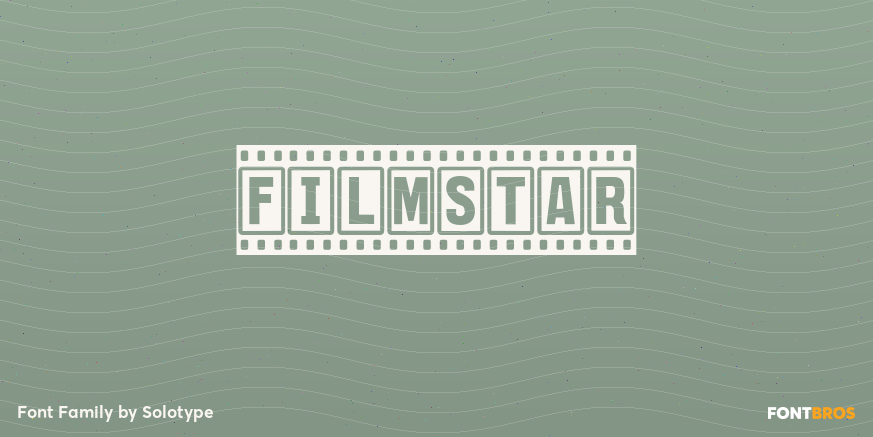
Filmstar
When you use this font, be sure to look for the two different sets of end and spacing pieces, one with stars, one without. The ends are on the Bracket and Brace keys, and the spaces are on the Vertical Bar and Backslash Key. There are also a couple of…